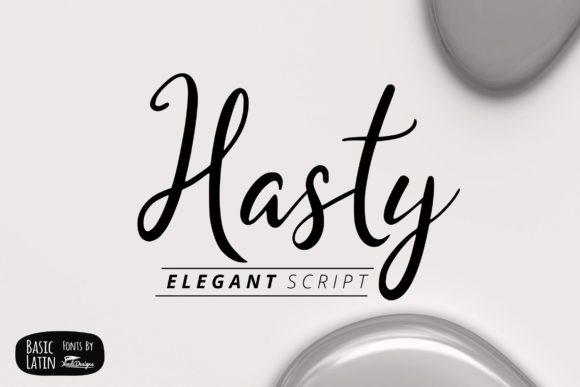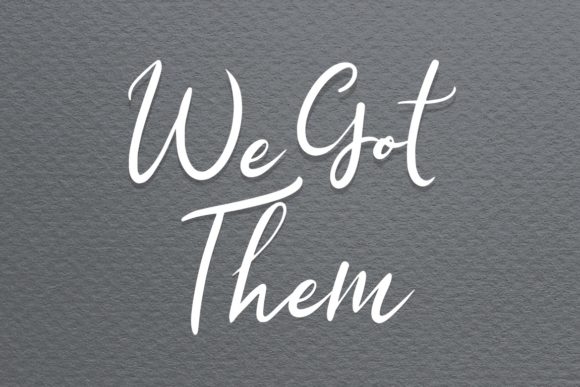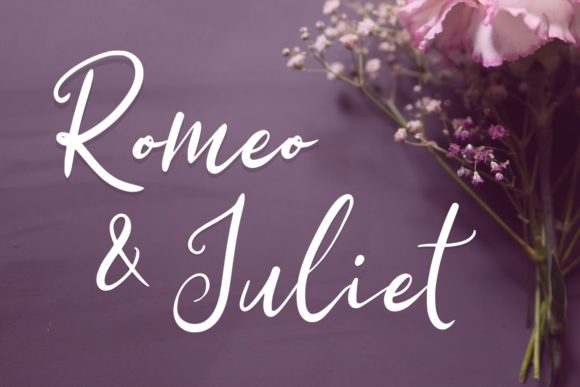
Hasty Font
About Hasty Font
Hasty is an elegant handwritten brush font perfect for projects such as logos, invitations, t-shirt designs and much more.
Make your next design stand out with this delicate font.